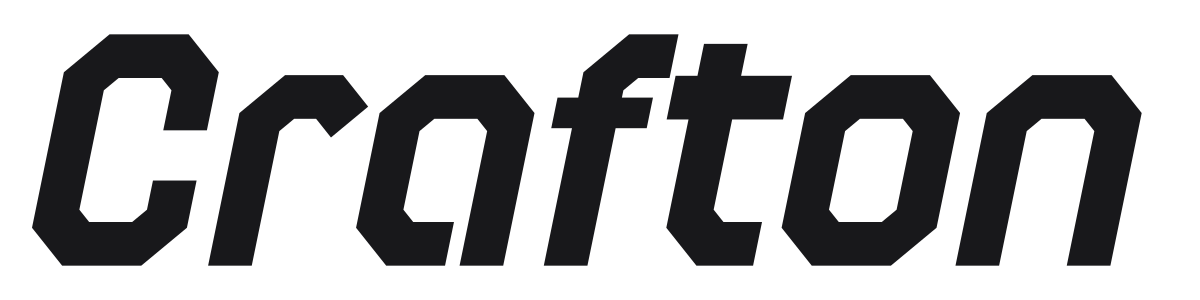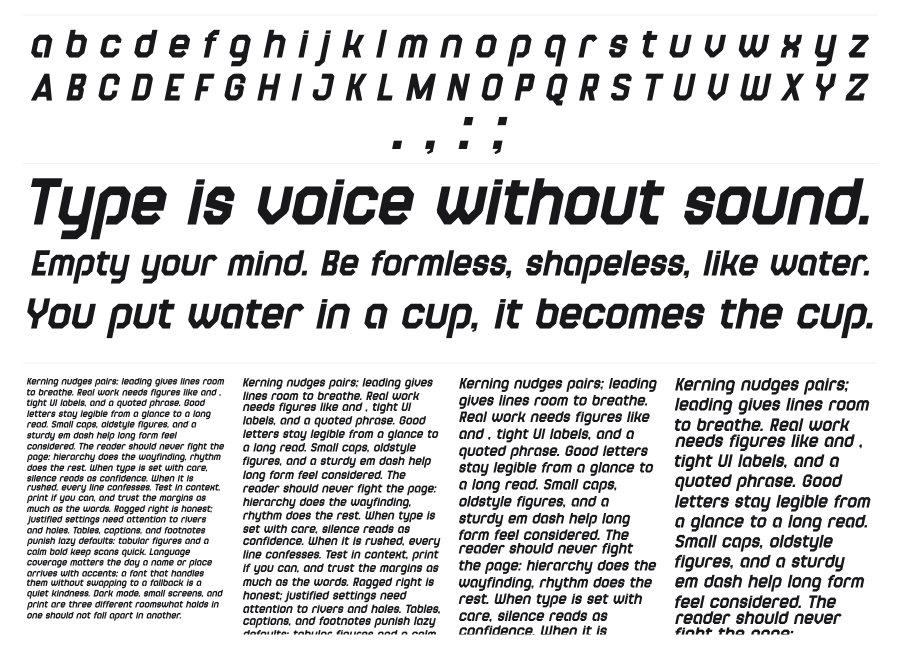
Crafton
Crafton is a bold geometric sans with hard angular cuts and sheared terminals that give it a mechanical, high-speed character. The aggressive italic lean and chamfered corners push it firmly into techno territory. It reads with force at large sizes and suits branding that needs to feel fast, powerful, or futuristic.